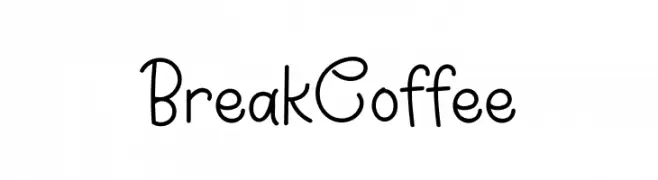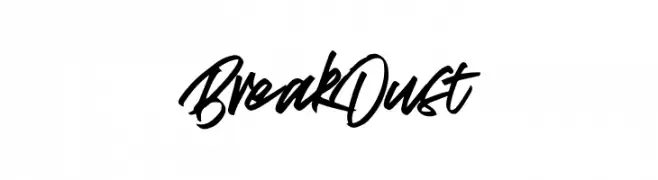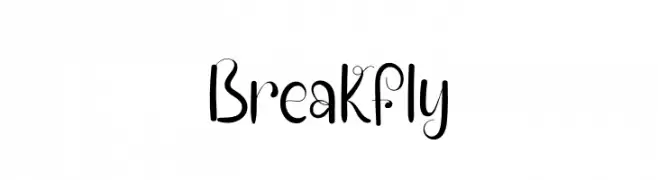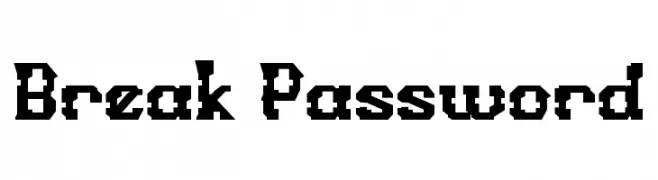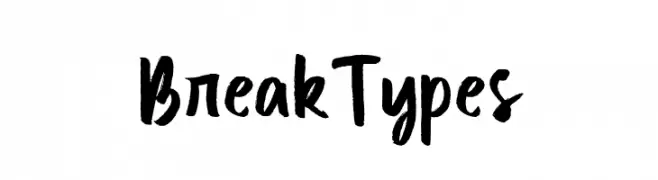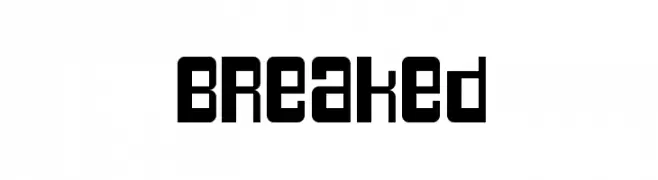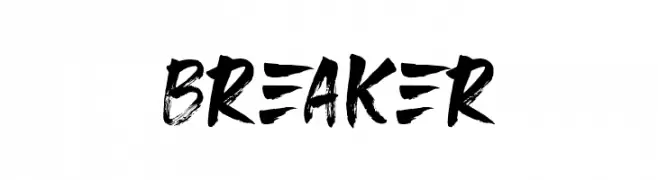
A playful handwritten font with whimsical loops and curves.
A bold, dynamic script font with a hand-drawn, brush-like texture.
A playful, whimsical font with flowing strokes and artistic flair.
A bold, angular font with a geometric and blocky design.
A bold, expressive handwritten font with brush-like strokes.
A bold, hand-painted style font with dynamic, brush-like strokes.
A bold, distressed font with a fragmented, dynamic appearance.
A bold, geometric font with a modern, industrial style.
A bold, brushstroke-style font with dynamic and expressive characters.
A bold, brush-style font with dynamic, hand-painted strokes.